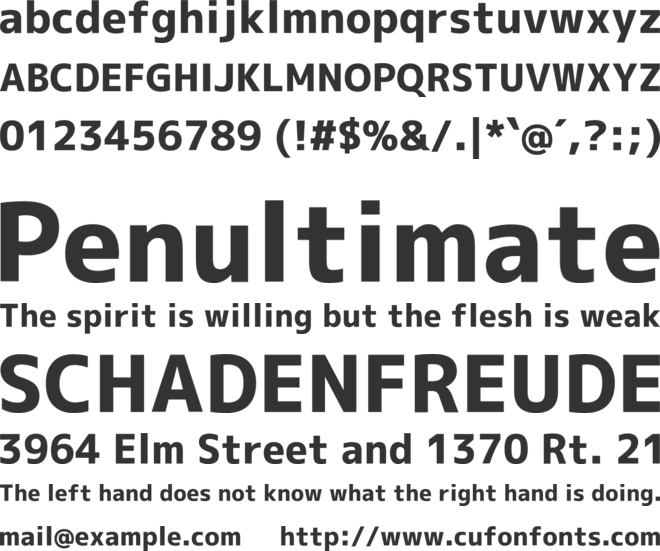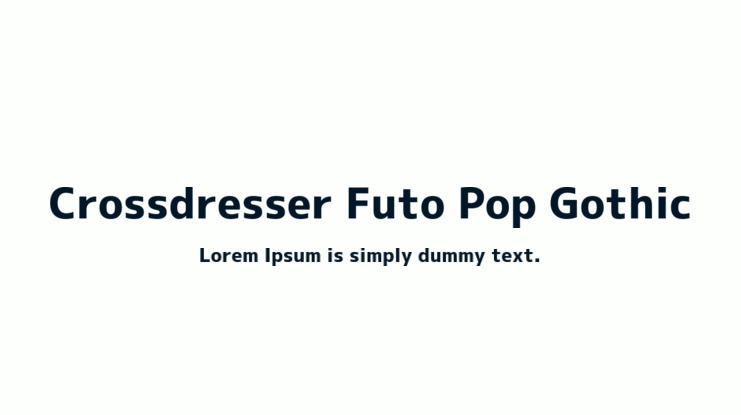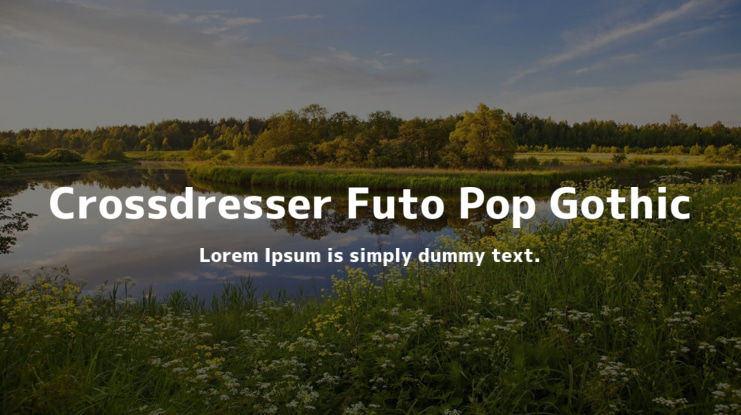
Crossdresser Futo Pop Gothic Font
This Japanese pop-style font stands out from the rest. The hiragana characters are angular and blocky, while the katakana characters are curvy and rounded (albeit with square ends), as if they have swapped the traditional characteristics of the Japanese kana syllabaries. The kanji and Latin alphabets are derived from the M+ 1c font.
Japanese Kana originally desgined by me.
Kanji from M+ 1c font (c) M+ Fonts Project.